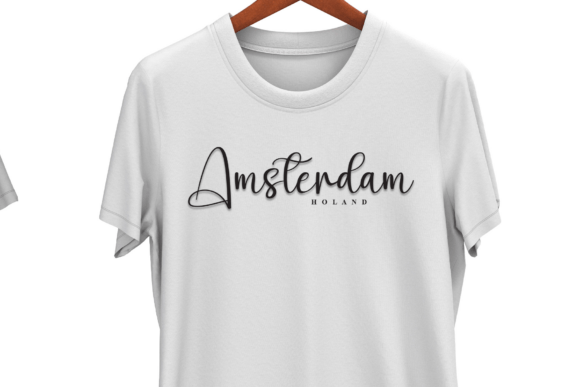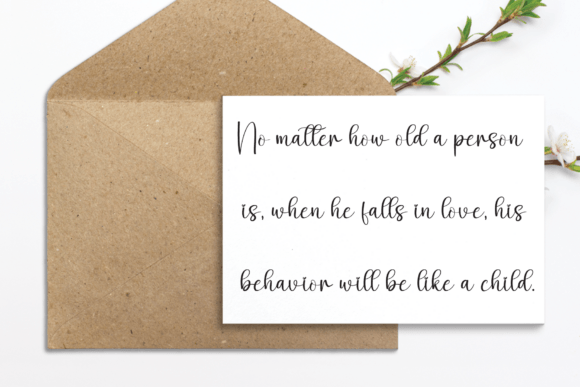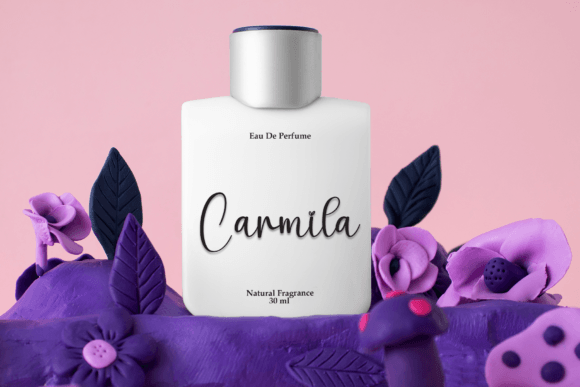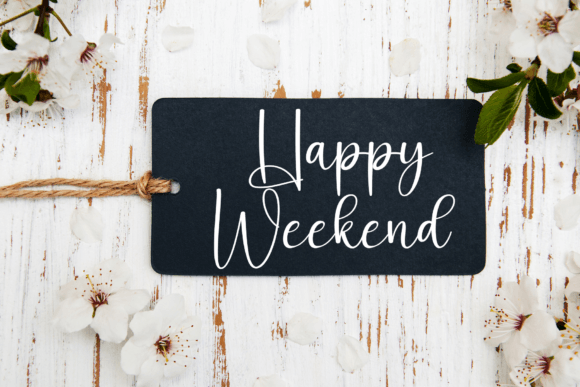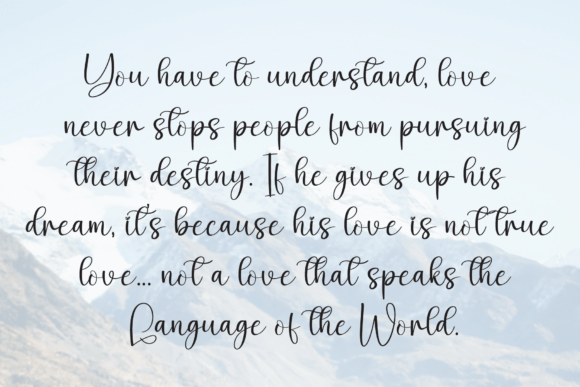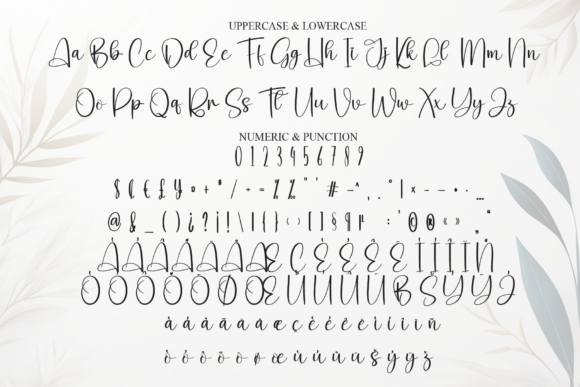
Introducing Finising Font: The Ultimate Playful Script for Festive Designs
Are you tired of using the same old fonts for your holiday designs, greeting cards, and festive projects? Look no further than Finising Font, a playful and charming script font that’s sure to add a warm, joyful touch to any design. With its smooth, flowing letters and fun, handwritten style, Finising Font is the perfect choice for designers and crafters looking to create unique and eye-catching projects.
What Makes Finising Font So Special?
Finising Font is a one-of-a-kind script font that’s designed to bring a sense of fun and playfulness to your designs. Its smooth, flowing letters are carefully crafted to create a sense of movement and fluidity, making it perfect for projects that require a dynamic and energetic feel. Whether you’re designing holiday cards, creating festive posters, or crafting handmade gifts, Finising Font is the perfect choice.
Key Features of Finising Font
- Playful and charming script font: Finising Font has a unique and charming personality that’s sure to capture the attention of your audience.
- Smooth, flowing letters: The font’s smooth, flowing letters create a sense of movement and fluidity, making it perfect for dynamic and energetic designs.
- Fun, handwritten style: Finising Font has a fun, handwritten style that’s perfect for holiday designs, greeting cards, and festive projects.
- Cute and friendly look: The font’s cute and friendly look adds a warm, joyful touch to any design, making it perfect for projects that require a personal and approachable feel.
Perfect for Holiday Designs and Festive Projects
Finising Font is specifically designed with holiday designs and festive projects in mind. Its playful and charming personality makes it perfect for:
- Holiday cards and invitations: Add a personal touch to your holiday cards and invitations with Finising Font’s fun, handwritten style.
- Festive posters and flyers: Create eye-catching posters and flyers with Finising Font’s smooth, flowing letters and playful personality.
- Handmade gifts and crafts: Add a touch of personality to your handmade gifts and crafts with Finising Font’s cute and friendly look.
Why Designers and Crafters Love Finising Font
Designers and crafters love Finising Font for its unique and charming personality. Here are just a few reasons why:
- Easy to read and use: Finising Font is easy to read and use, making it perfect for designers and crafters of all skill levels.
- Versatile and flexible: Finising Font can be used for a wide range of projects, from holiday designs to festive crafts.
- Unique and eye-catching: Finising Font’s playful and charming personality makes it a great choice for designers and crafters looking to create unique and eye-catching projects.
Get Creative with Finising Font
Ready to get creative with Finising Font? Here are a few ideas to get you started:
- Create a festive holiday card: Use Finising Font to create a fun and playful holiday card that’s sure to delight your friends and family.
- Design a handmade gift: Add a personal touch to your handmade gifts with Finising Font’s cute and friendly look.
- Make a festive poster: Use Finising Font to create an eye-catching poster that’s perfect for holiday parties and events.